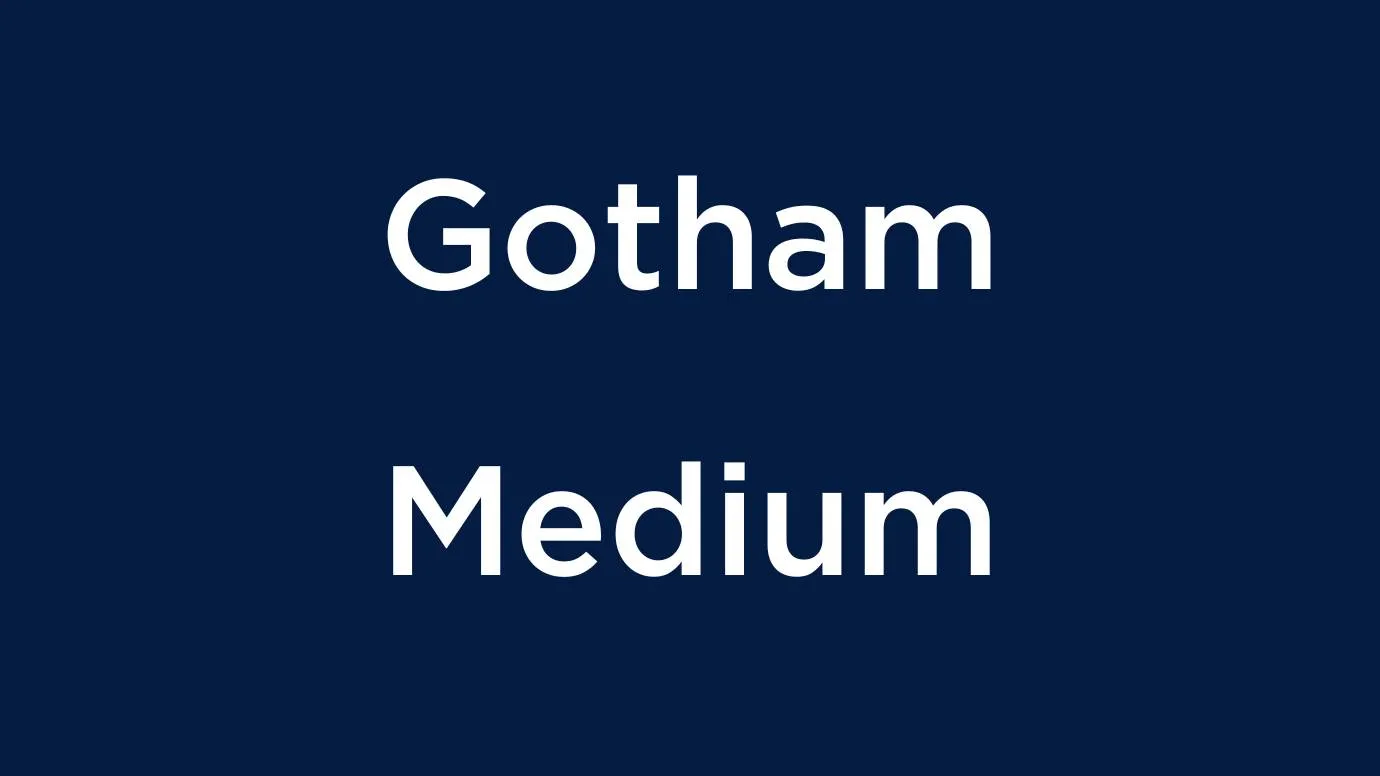
Gotham MediumĀ is a very high-quality typeface that is a family member of Gotham Font. The Gotham Font was initially commissioned by GQ magazine and their editors want a geometric sans-serif typeface that displays a masculine and fresh look for their magazine.
This font family comprises two weights that are Regular and Italic. It has TrueType features and many stylistic alternates. It can be also used with the CSS family.
Gotham Medium Font